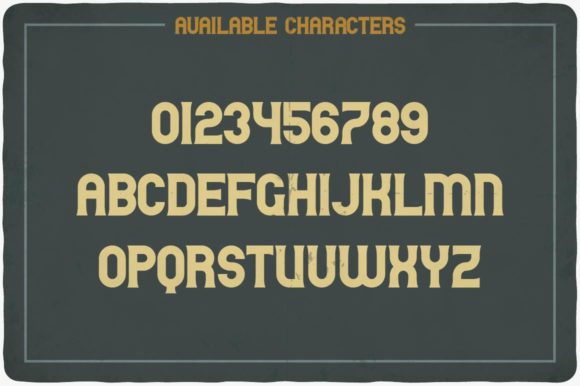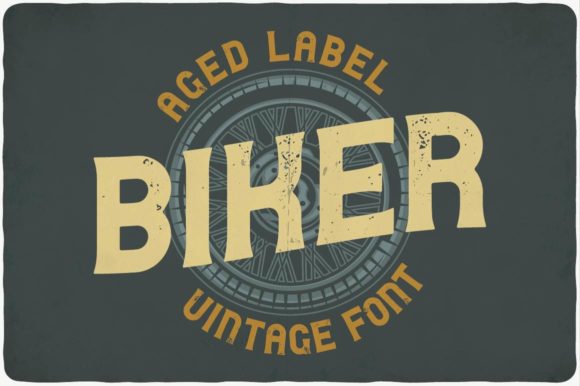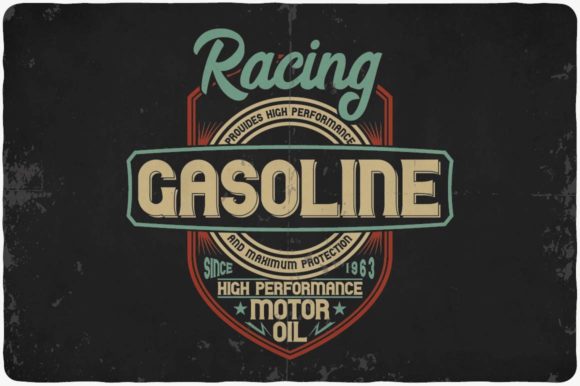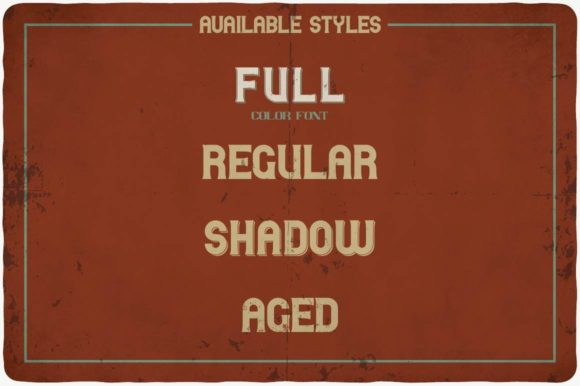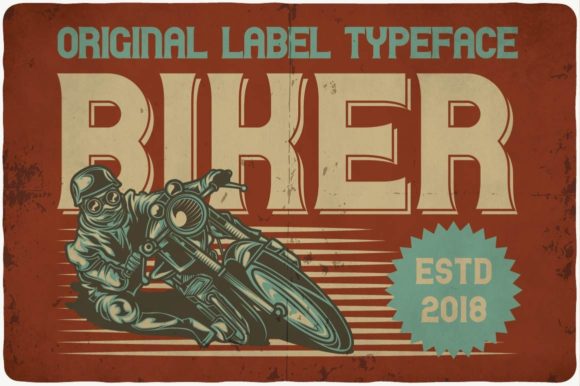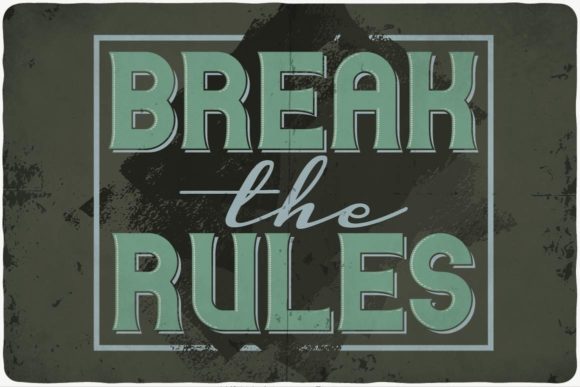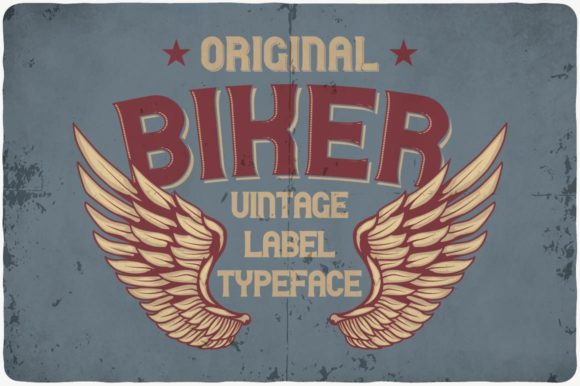
The Ultimate Biker Font Guide: A Designer’s New Best Friend
I’ll never forget the time I was working on a project for a client who wanted a bold, eye-catching font to match their edgy brand. I scoured the internet, tried countless fonts, but nothing seemed quite right. That was until I stumbled upon the Biker font. It was love at first sight! ✨ The clean lines, the rugged charm, and the unmistakable style won me over. In this article, I’ll share my experience with the Biker font, its features, and how to make the most of it in your designs.
An Honest Review of Biker Font
• ✅ Bold and classy: Biker font is perfect for making a statement. Its bold strokes and elegant lines make it a great choice for headlines, titles, and any text that needs to stand out.
• ✨ Versatile: Whether you’re working on a project for a biker club, a fashion brand, or a tech startup, Biker font adapts seamlessly to any style or theme.
• 🔥 Attention-grabbing: Let’s face it, we live in a world where attention spans are short. Biker font is designed to grab attention and hold it.
While Biker font is an excellent choice for many projects, there are a few things to keep in mind: 🤔
• ⚠️ Legibility at small sizes: Like many bold fonts, Biker may lose legibility when scaled down to very small sizes. It’s best used at larger sizes where its features can shine.
• ⚠️ Overuse: As with any bold font, it’s easy to overuse Biker. Balance it with simpler fonts to maintain visual interest.
A Practical Guide to Using Biker Font
The Backstory of Biker Font
The Biker font was created with the biker culture in mind, but its appeal quickly grew beyond that niche. Inspired by classic biker jackets and the open road, the designer aimed to capture the essence of freedom and rebellion. The result is a font that’s both tough and sophisticated.
Q: Is Biker font suitable for body text?
A: While Biker font is stunning, it’s primarily designed for headlines and titles. For body text, consider a more readable font.
Q: Does Biker font support multiple languages?
A: Biker font may support a range of languages, but it’s best to check the character set to ensure it covers your specific needs.
Q: How do I access stylistic alternates in Biker font?